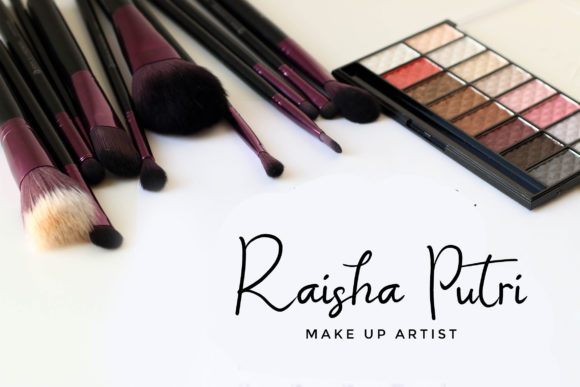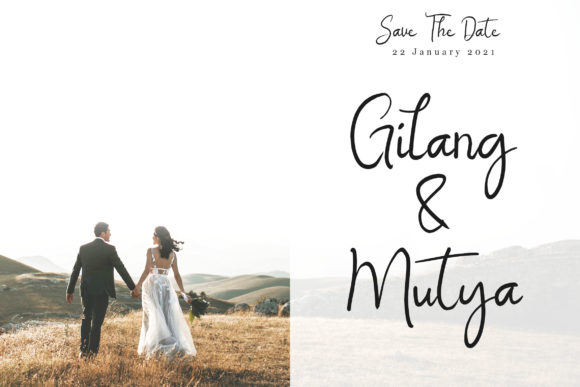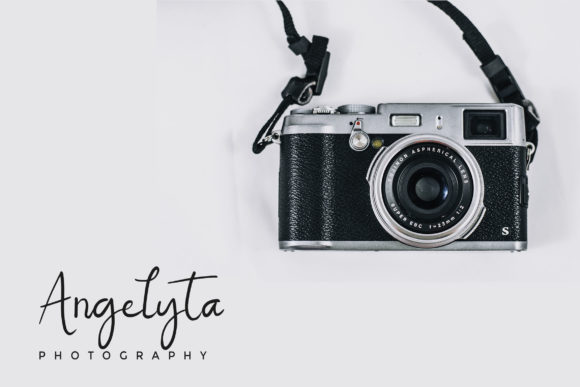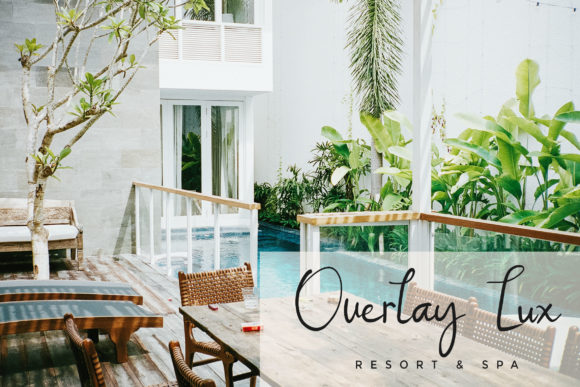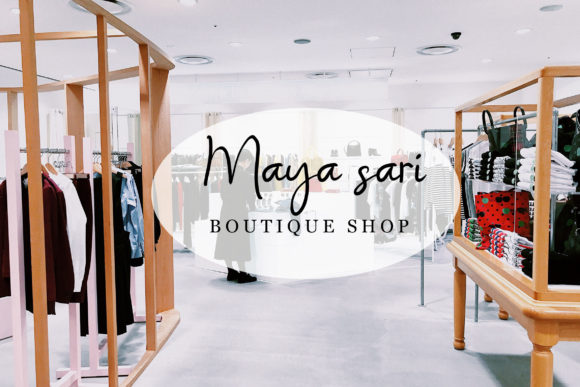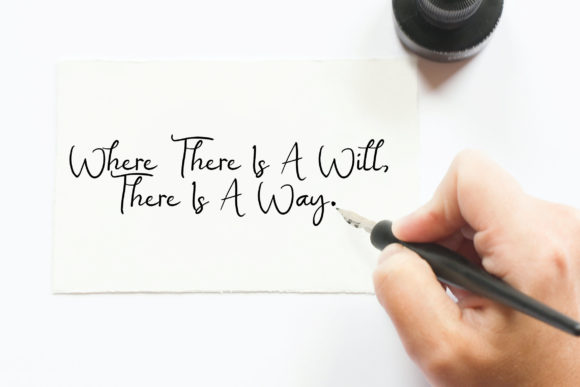
Introduction to Lestya Font
Do you remember that moment when you finally get the creative spark you’ve been waiting for? The one where everything falls into place, and your imagination runs wild with possibilities? For designers, this moment often comes when they stumble upon the perfect font to bring their vision to life. And that’s exactly what we’re about to explore – the magical world of the Lestya Font.
This high-quality script font is a game-changer for any creative project, offering a touch of elegance that’s hard to resist. Whether you’re working on a design for social media or a calligraphy script for a DIY project, Lestya Font is the perfect design resource to make your ideas shine. With its PUA encoded glyphs and swashes, you’ll have endless possibilities at your fingertips, allowing you to add a personal touch to your work.
Key Features of Lestya Font
- High-quality design resource suitable for creative projects, offering a unique and stylish touch.
- Features a transparent background, allowing for seamless integration with different design elements and backgrounds.
- Designed with a modern aesthetic, making it perfect for a wide range of creative projects, from digital art to print materials.
- Includes a wide range of characters, including uppercase and lowercase letters, numbers, and special characters, making it a versatile design resource.
Honest Review: Lestya Font
I recently had the chance to work with the Lestya Font, and I must say it’s been a game-changer for my high-quality creative projects. This font is a fantastic design resource that offers a wide range of styles and versatility.
- ✨ The Lestya Font is incredibly easy to use, with a seamless integration into most design software.
- ✨ The transparent background option is a huge plus, allowing for maximum flexibility in my design work.
- ⚠️ The Lestya Font may not be the best choice for projects requiring a large character set, as it can be quite limited in this regard.
- ⚠️ Some users may find the font’s style a bit too modern or trendy, which may not appeal to everyone.
Overall, I’m thoroughly impressed with the Lestya Font. Its high-quality design and transparent background make it an excellent addition to any designer’s toolkit. While it may have some limitations, it’s an excellent choice for creative projects that require a stylish and modern touch.
Lestya Font is a high-quality design resource ideal for creative projects. This free download offers a unique and elegant style that can elevate any design. With a transparent background, it’s perfect for layering or combining with other elements.
Common Use Cases for Lestya Font
Lestya Font is ideal for use in wedding invitations, business cards, and other design projects where a elegant and sophisticated look is desired. It’s also perfect for use in social media graphics and blog posts where a high-quality font is needed.